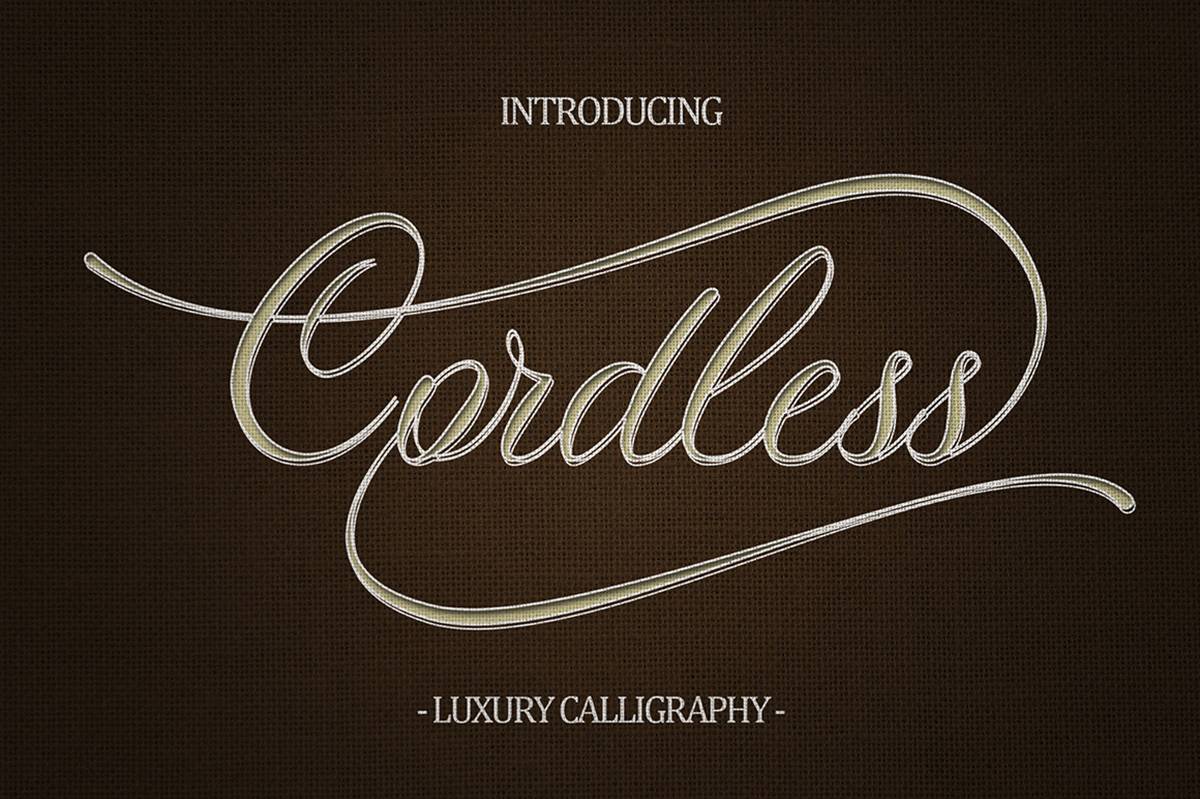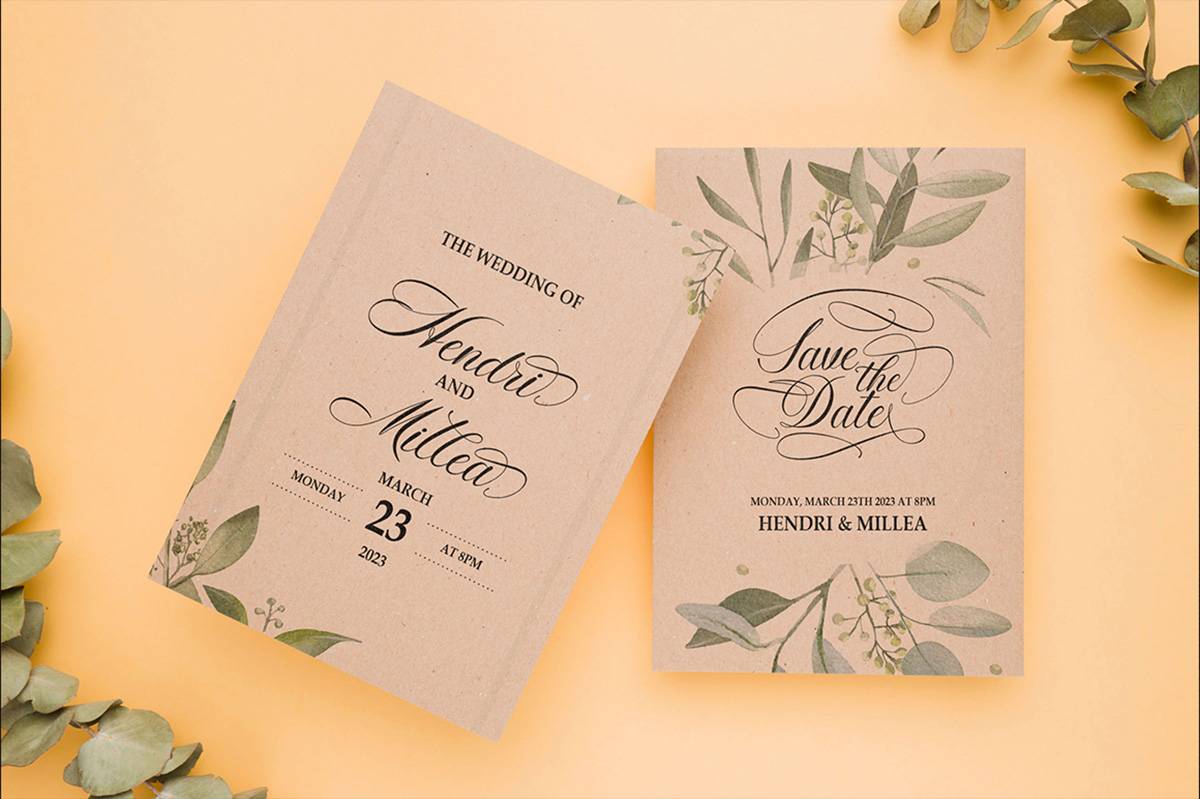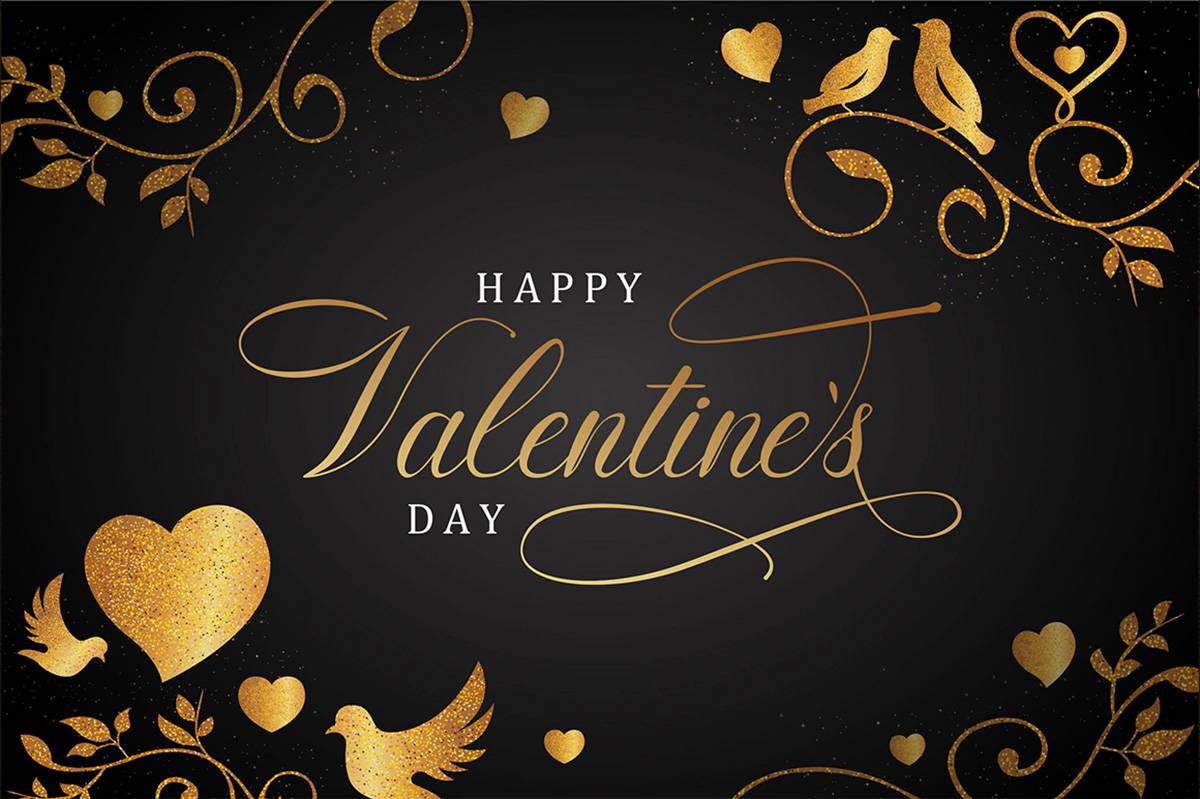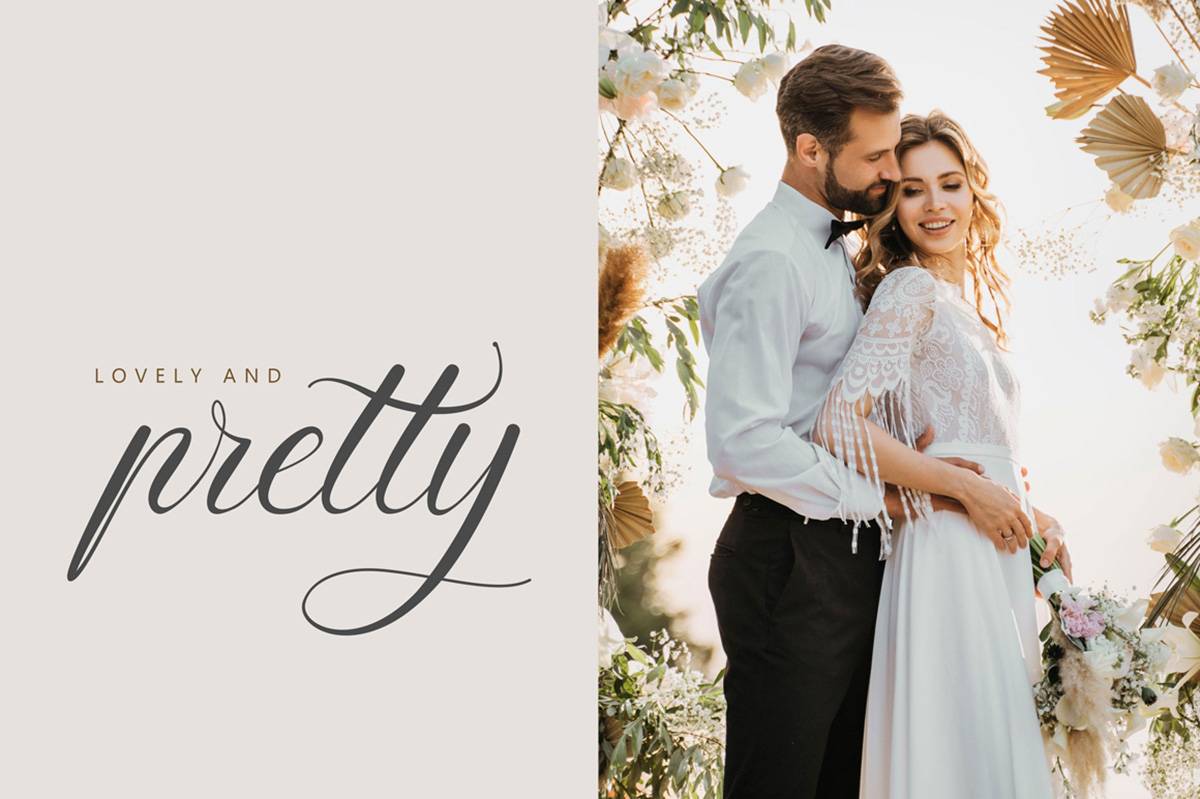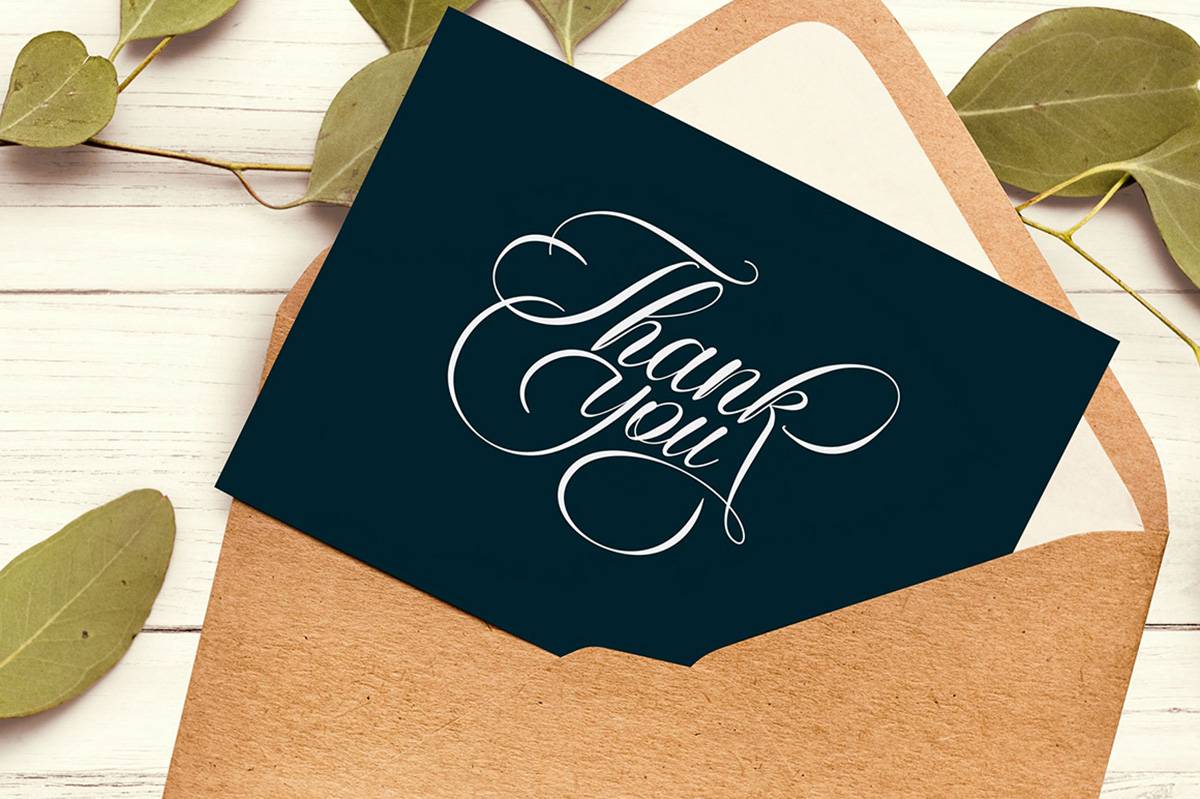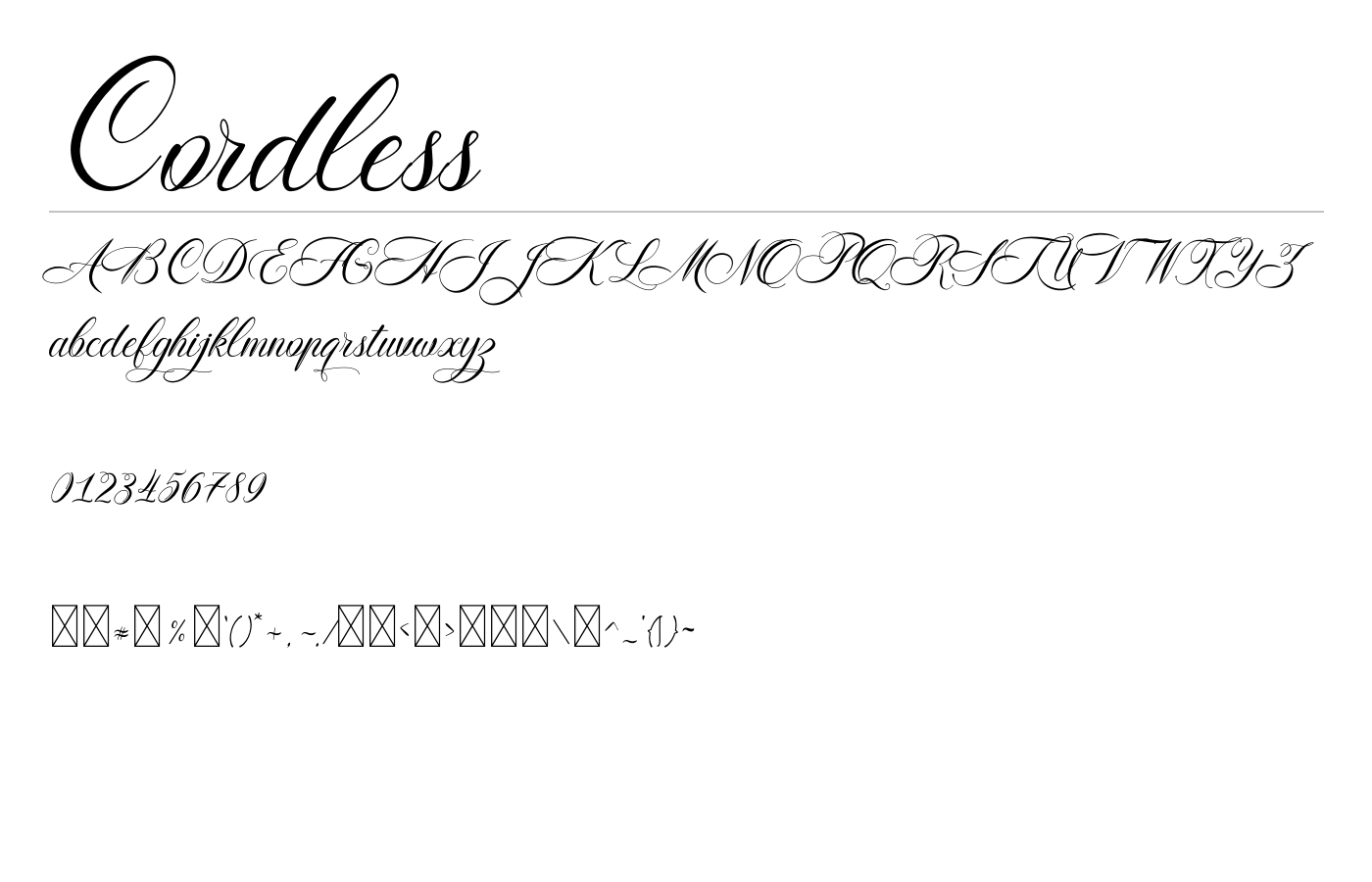
Cordless is an elegant script font characterized by its delicate, flowing strokes and fine contrast between thick and thin lines. Its graceful letterforms with elaborate curls and flourishes give it a sophisticated, classic feel ideal for luxury branding, wedding invitations, and refined editorial uses. This font shines best in large sizes where its intricate style can be fully appreciated, making it perfect for logos, headlines, and decorative design elements.
Cordless Font
About Cordless Font
| Font family | Cordless Font |
| Designer | Muhammad Irwan |